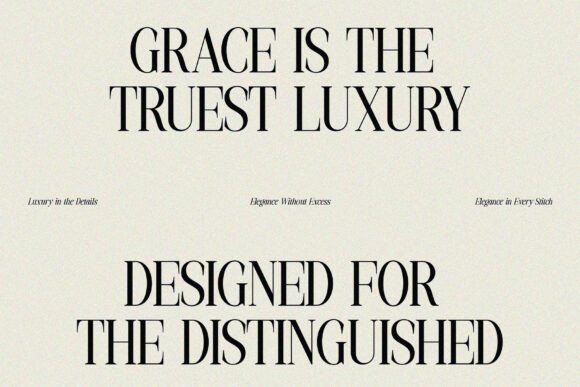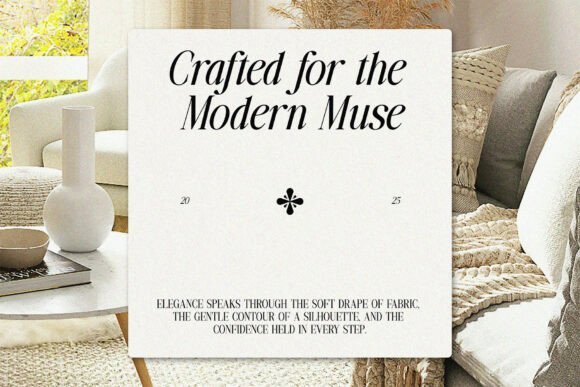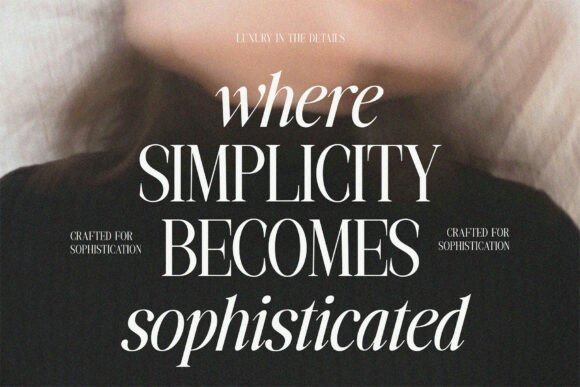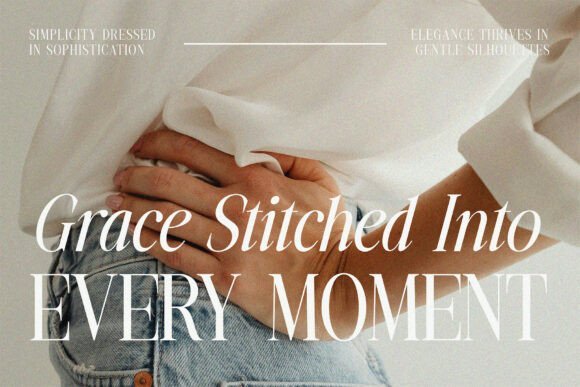
Monarch Heritage is an elegant and modern editorial display serif crafted with refined contrast and graceful curves. Designed to bring a sense of luxury, timelessness, and sophistication, this typeface is perfect for designers who want to elevate their visual storytelling.